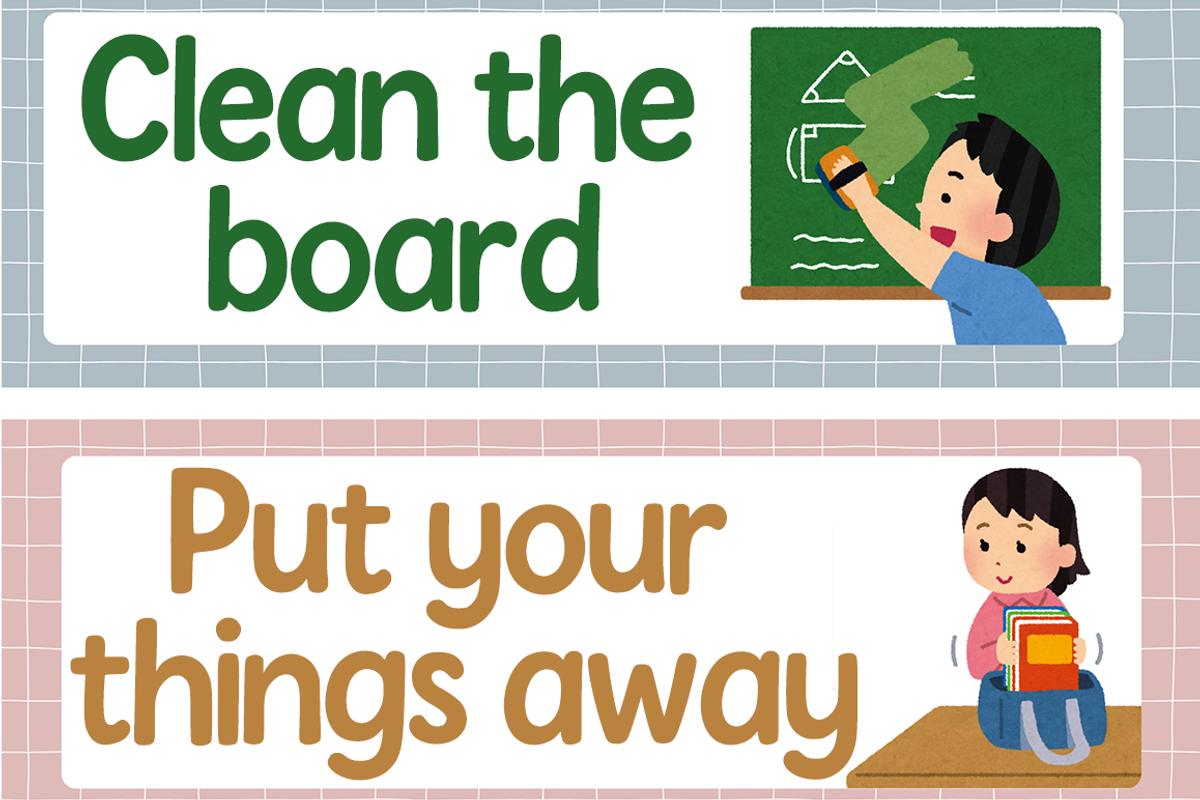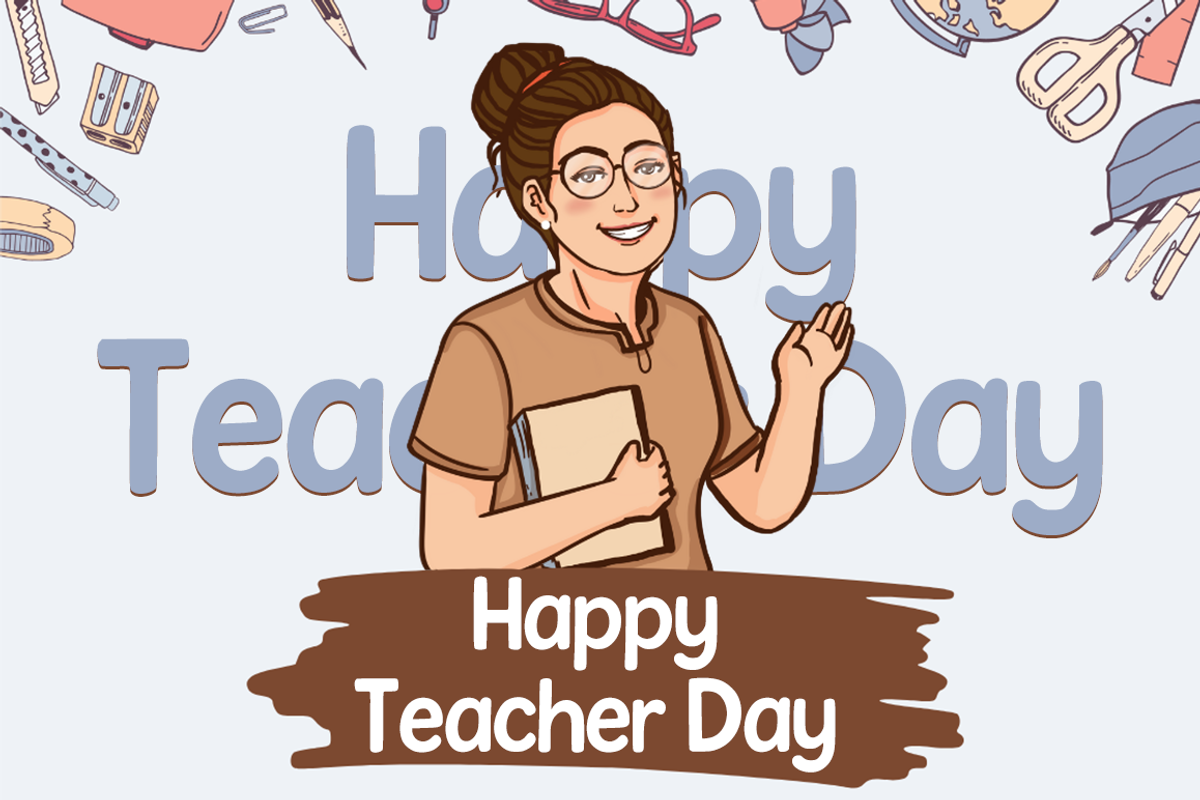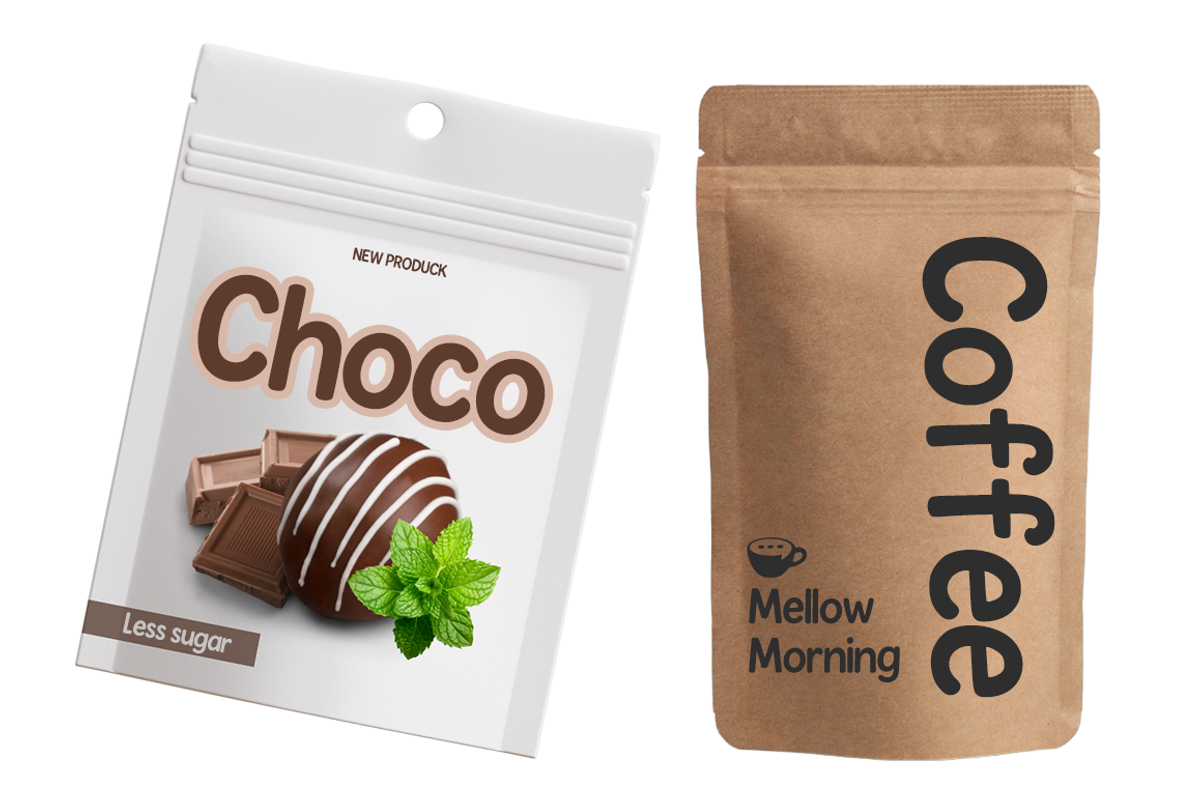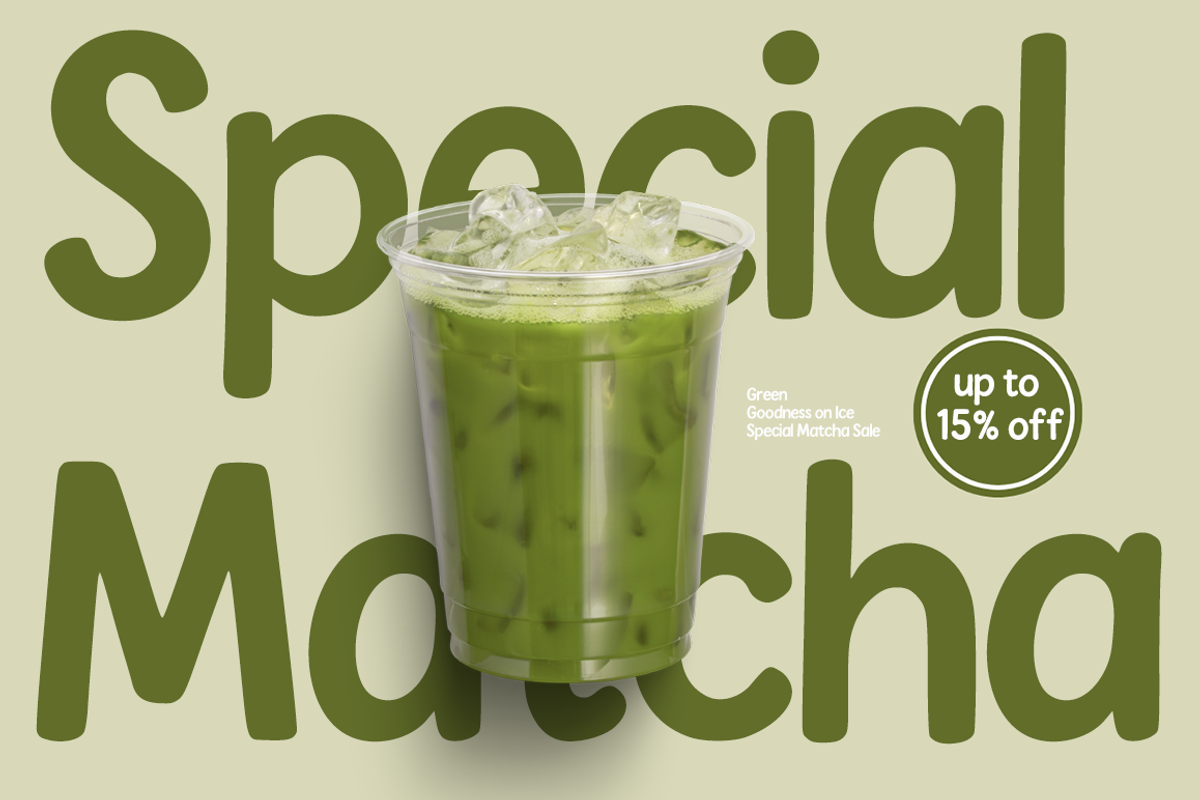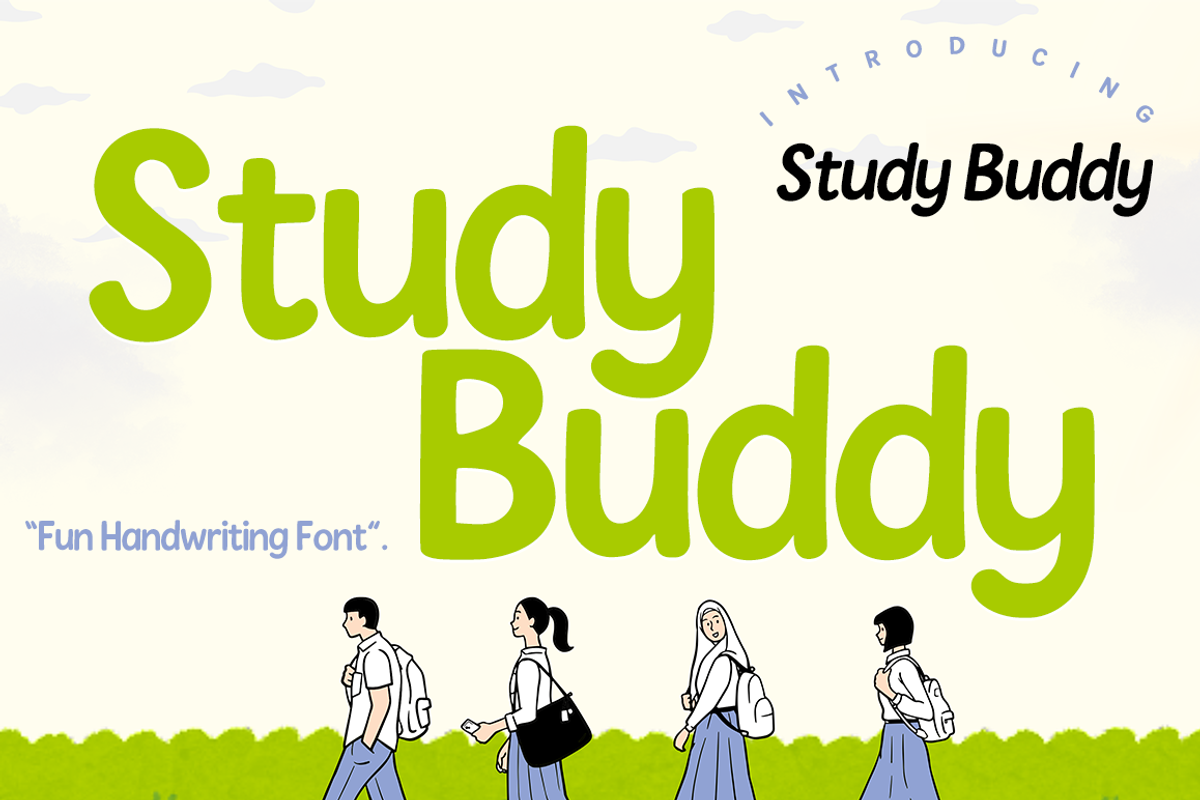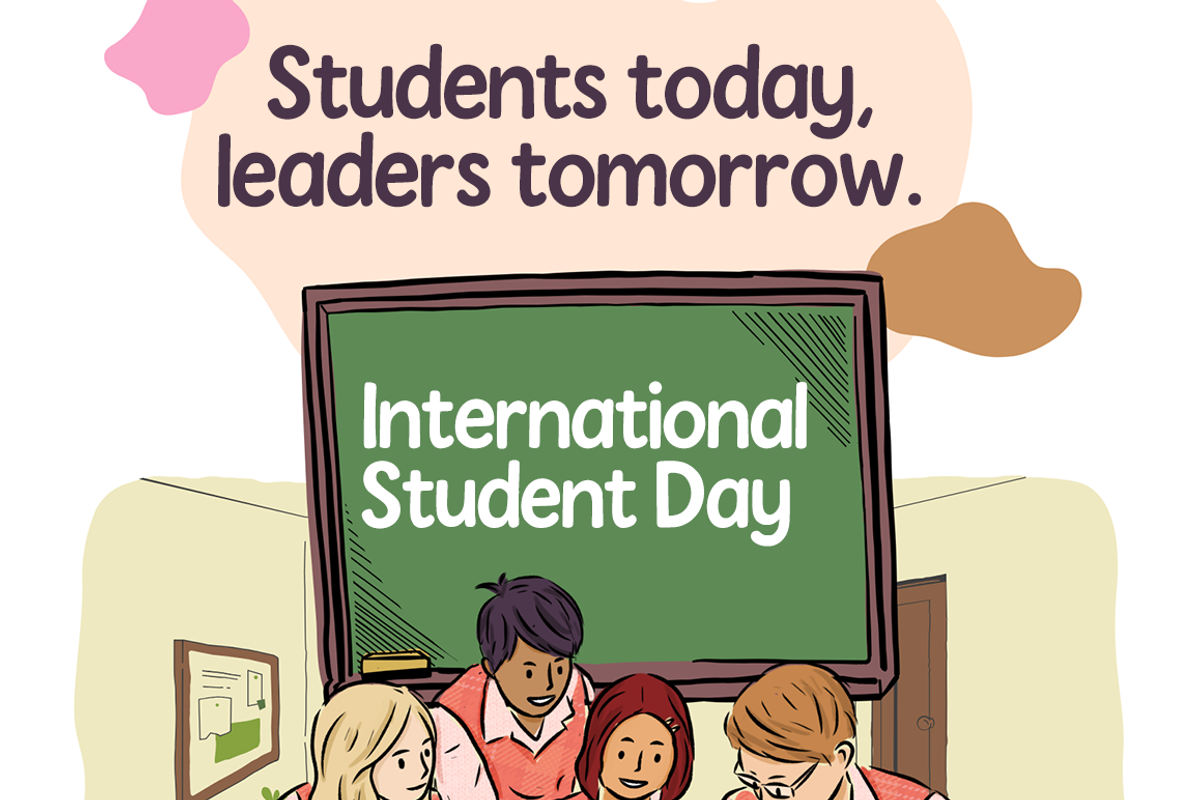
Study Buddy – Playful Handwriting
Study Buddy is a fun and friendly handwriting font that brings a joyful touch to your projects. Its rounded and casual letters make it versatile for designs related to education, children, and creative occasions.
This font is ideal for posters, worksheets, birthday cards, packaging, classroom materials, social media graphics, and DIY projects. With its complete set of uppercase, lowercase, numbers, and punctuation, Study Buddy gives you flexibility for both print and digital designs.